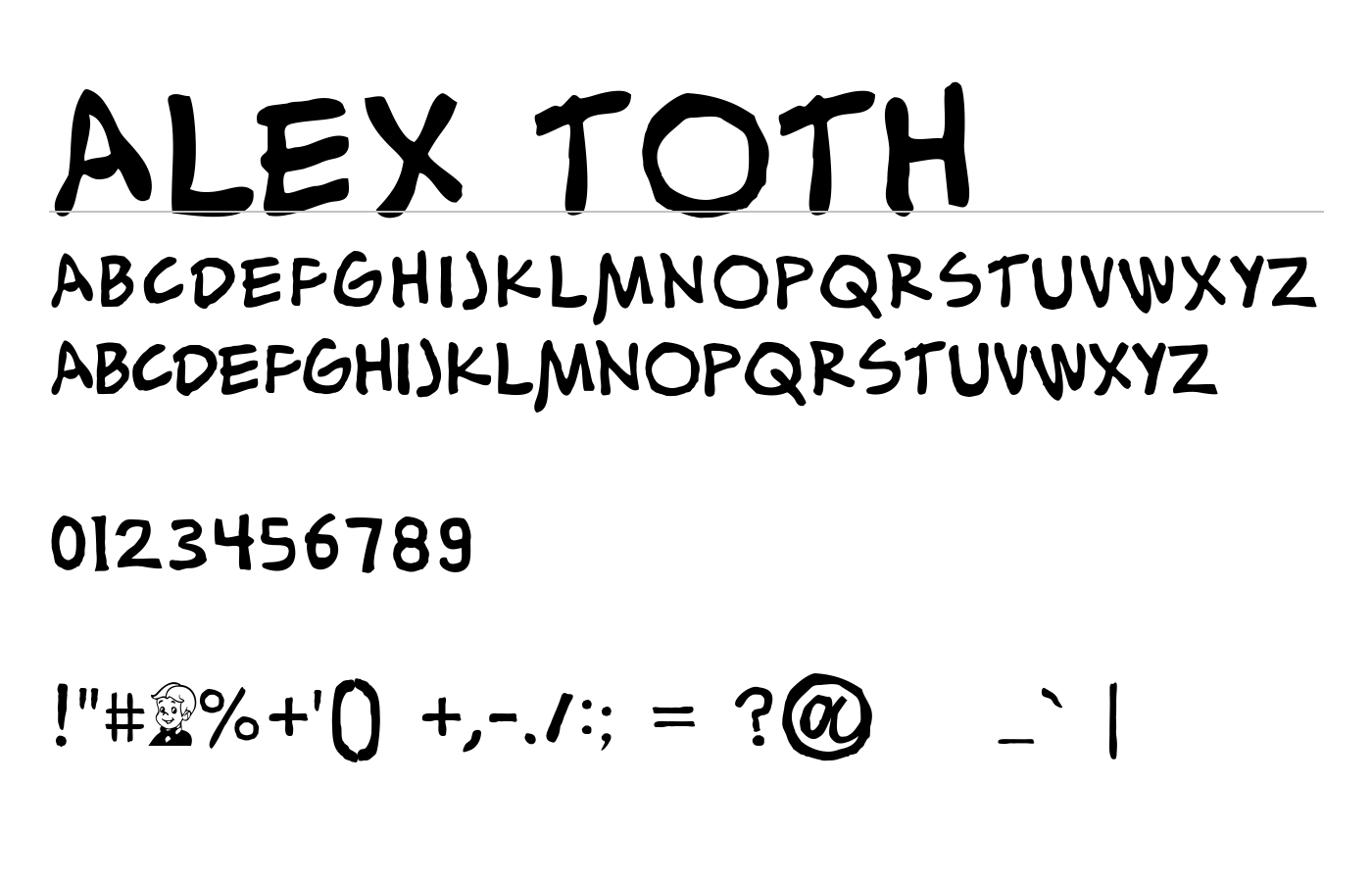
Alex Toth Font is a playful, hand-drawn sans serif typeface with irregular, slightly textured strokes that give it a casual and friendly feel. Its uneven letterforms and quirky details make it perfect for creative projects, comics, and informal branding where a unique, approachable character is desired. This font works best for headlines, logos, and designs that benefit from a hand-crafted, artistic touch.
Alex Toth Font
About Alex Toth Font
| Font family | Alex Toth Font |
| Designer | Daniel Werneck |